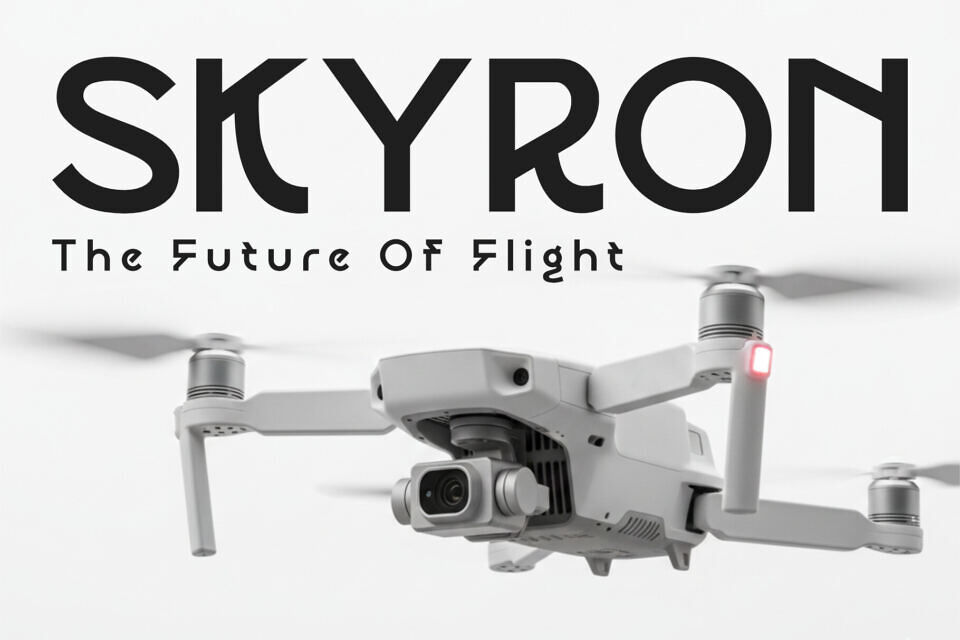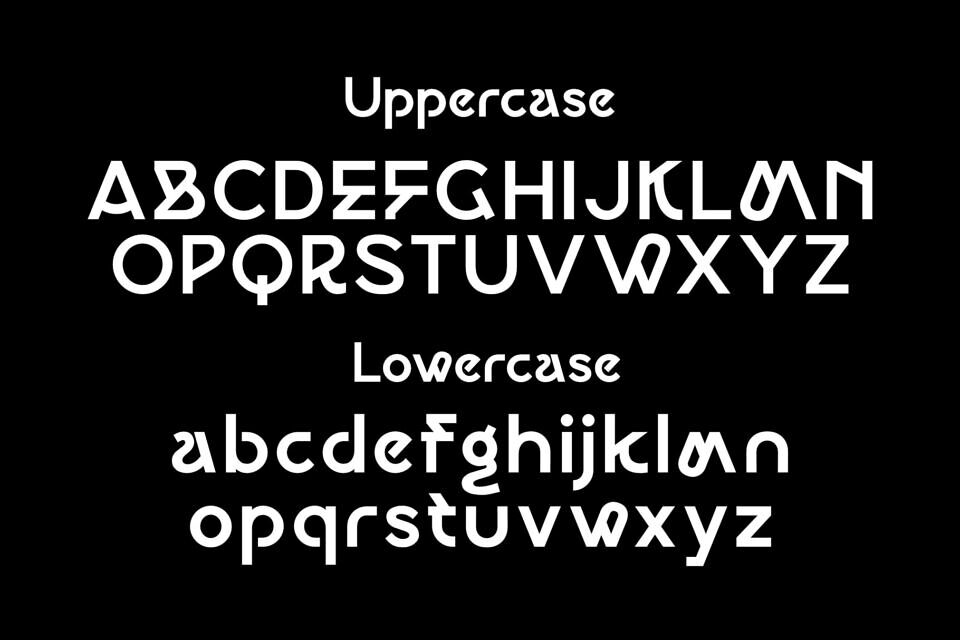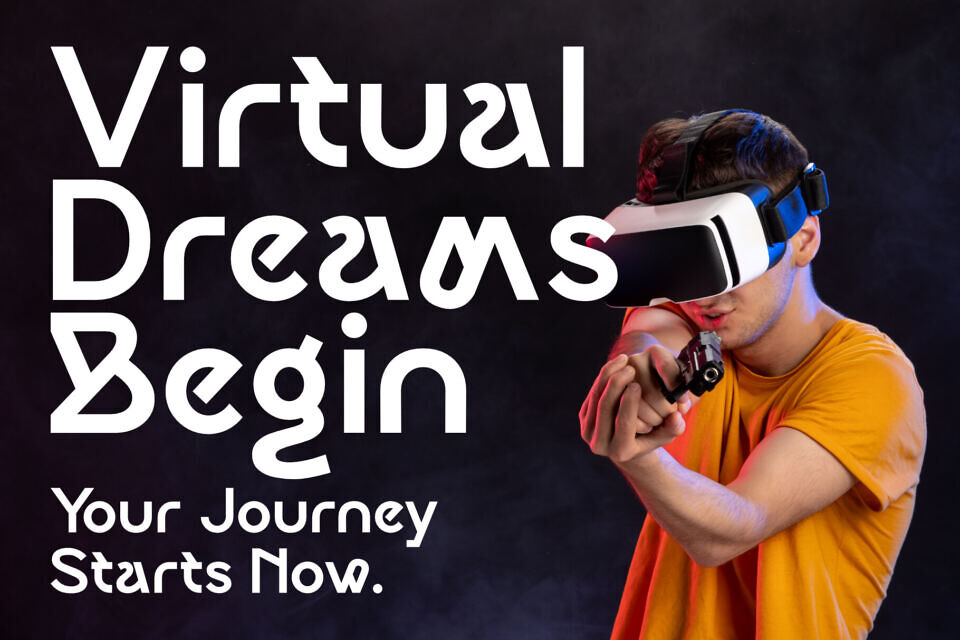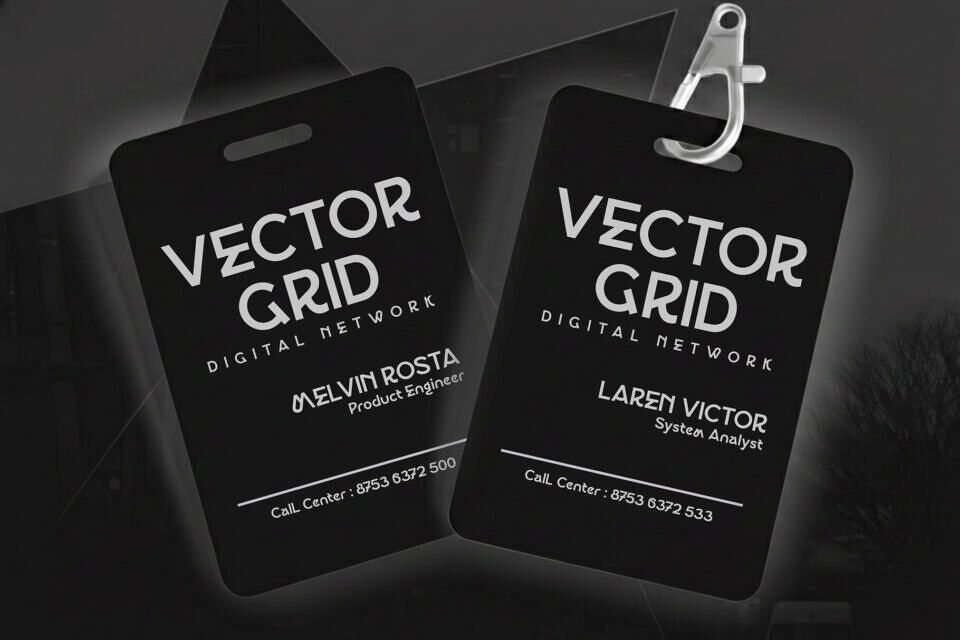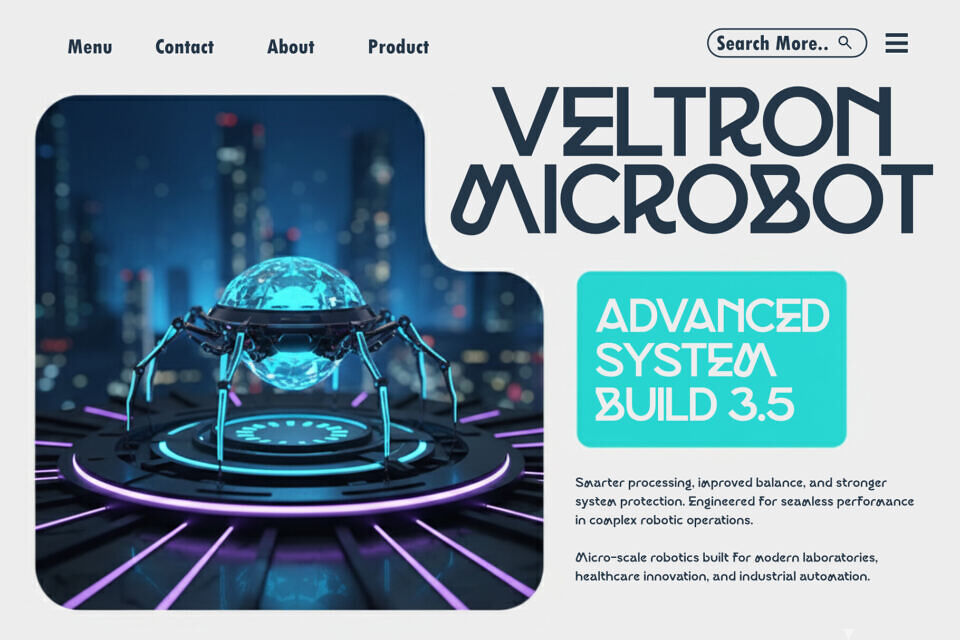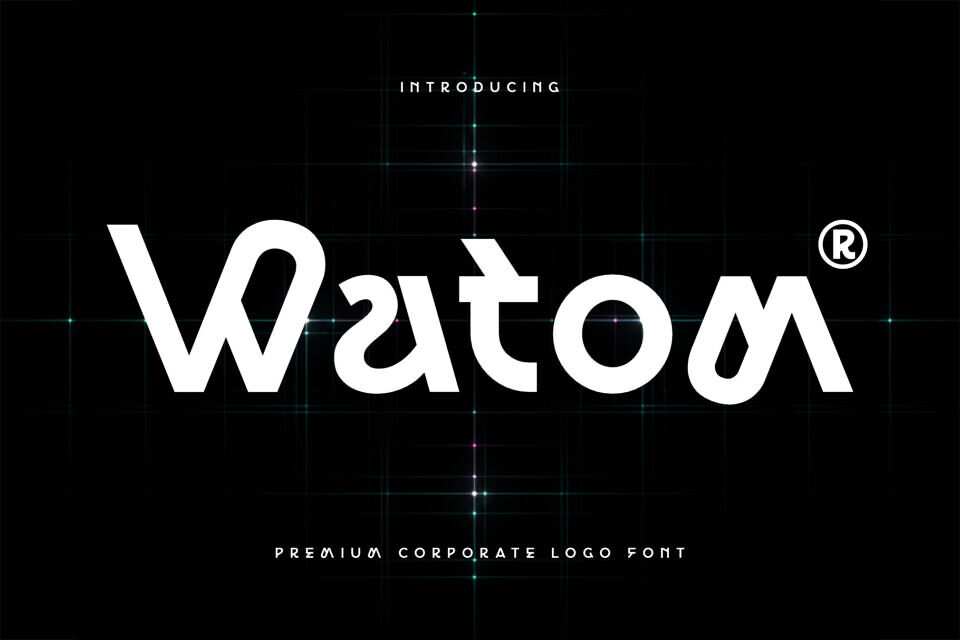
Watom Font
Watom is a premium corporate logo font designed to embody sophistication, authority, and modern professionalism. Built with precise geometry, confident proportions, and refined curves, this typeface delivers a clean and powerful presence for high-end branding.
Its carefully balanced letterforms—particularly in characters like W, a, and m—create a memorable visual identity that feels both timeless and contemporary. Perfect for corporate logos, financial institutions, consulting firms, technology companies, and luxury brands seeking a strong yet elegant typographic voice.